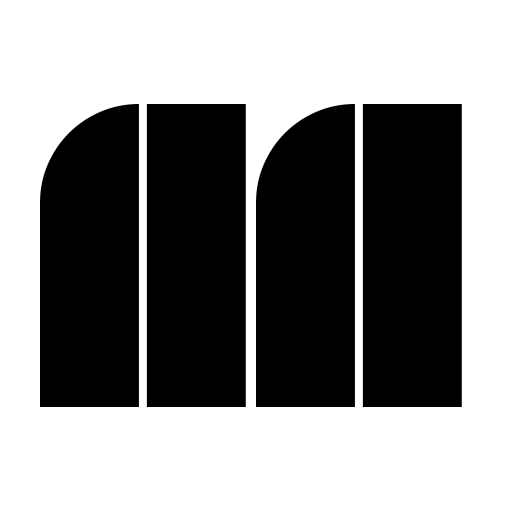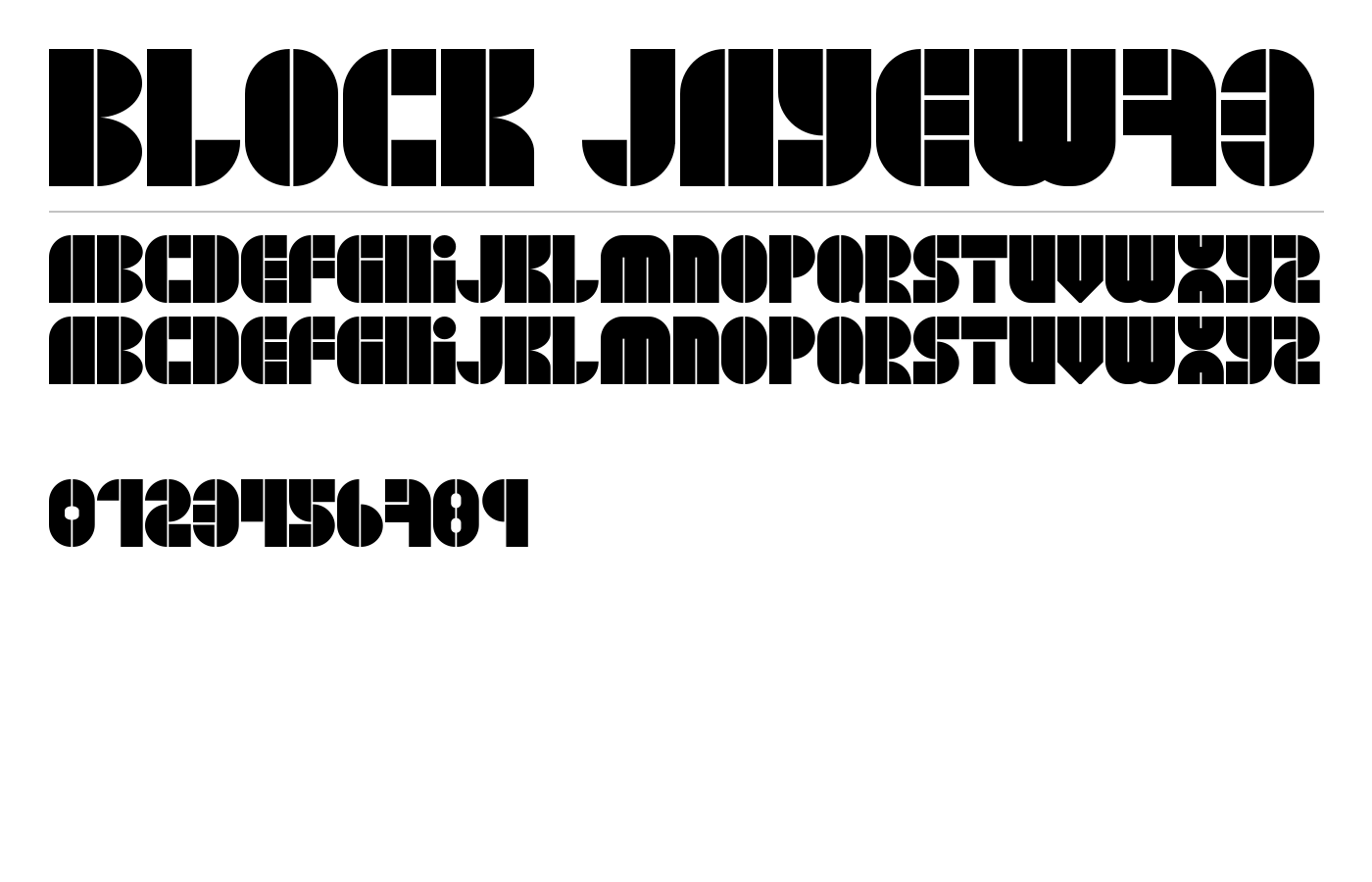
BLOCK JayeW73 is a bold, geometric sans serif font with a striking modular construction that gives it a distinctive, modern look. Its heavy weight and solid block shapes create a strong visual impact, making it perfect for headlines, logos, and branding that aim to convey confidence and futuristic style. This font works well in creative, edgy contexts where a contemporary and memorable aesthetic is desired.
BLOCK JayeW73 Font
About BLOCK JayeW73 Font
| Font family | BLOCK JayeW73 Font |
| Designer | karim Latrous / JayeW73 |